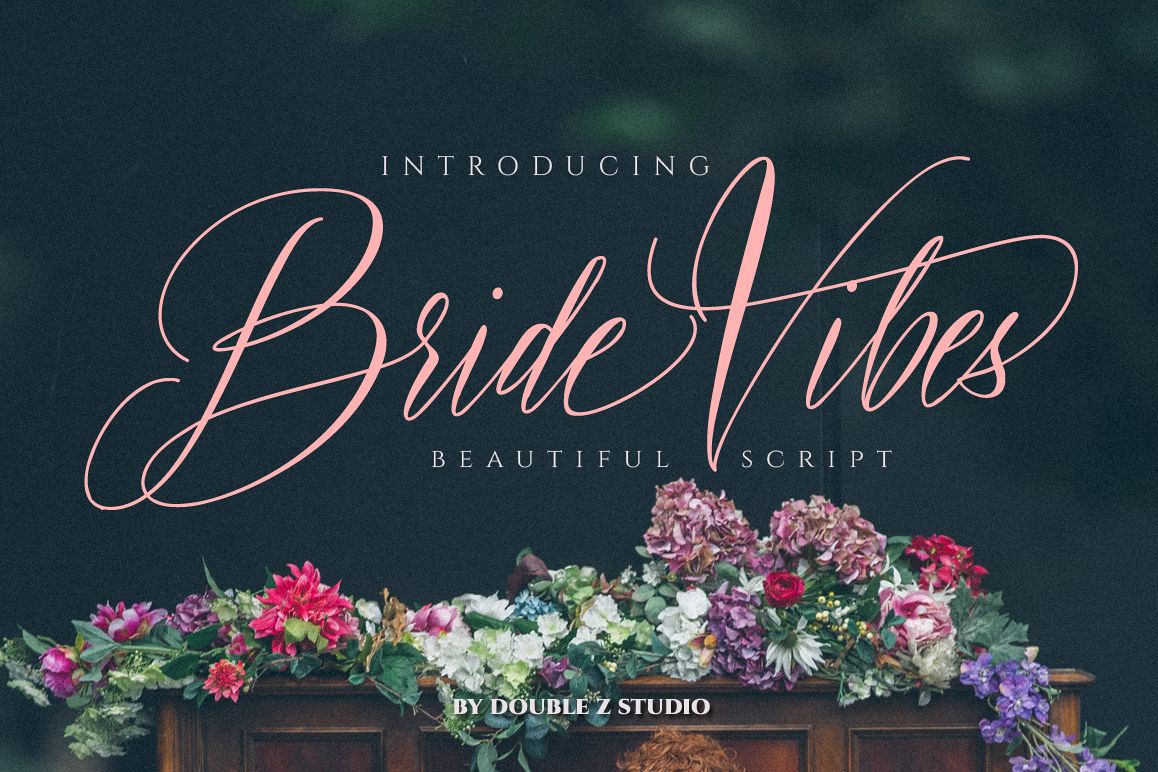
Bride Vibes Script
Bride Vibes
Bride Vibes is a beautiful and elegant script. A lovely perfect for designing blog logo, website logo, print ads, book covers, film covers, apparel, cards, logos, posters, etc. Opentype features gives you more alternatives in designing.
• Basic Latin A-Z and a-z
• Symbols
• Stylistic Set
Multilingual supports the following languages: English, Danish, Dutch, German, Icelandic, Italian, Norwegian, Portuguese, Spanisch, Swedish, Zulu, Afrikaans, Albanian.